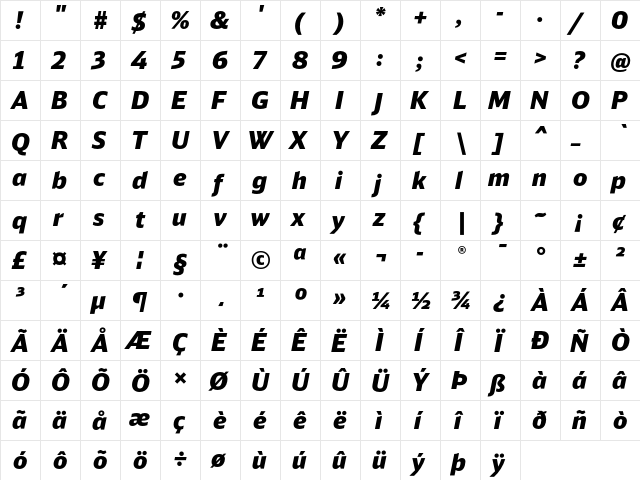
DB Head Black Italic
Design Context for DB Head Typeface
DB Head is a composed and adaptable typeface that performs quietly and consistently across a wide range of design contexts. The slanted form adds forward momentum and visual energy.
Pro Tip: Try DB Head for annotation and caption copy alongside an upright companion — the contrast in angle creates a dynamic but ordered typographic system.